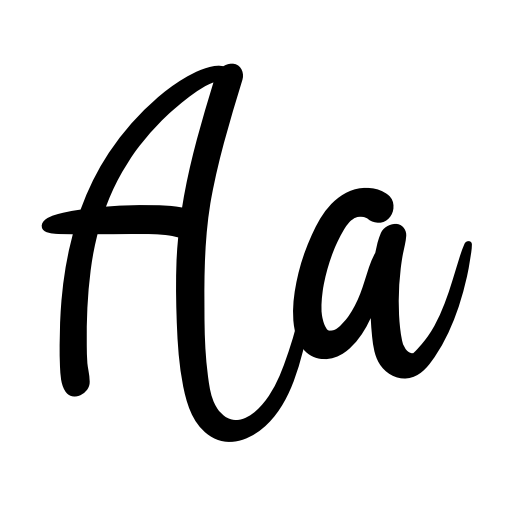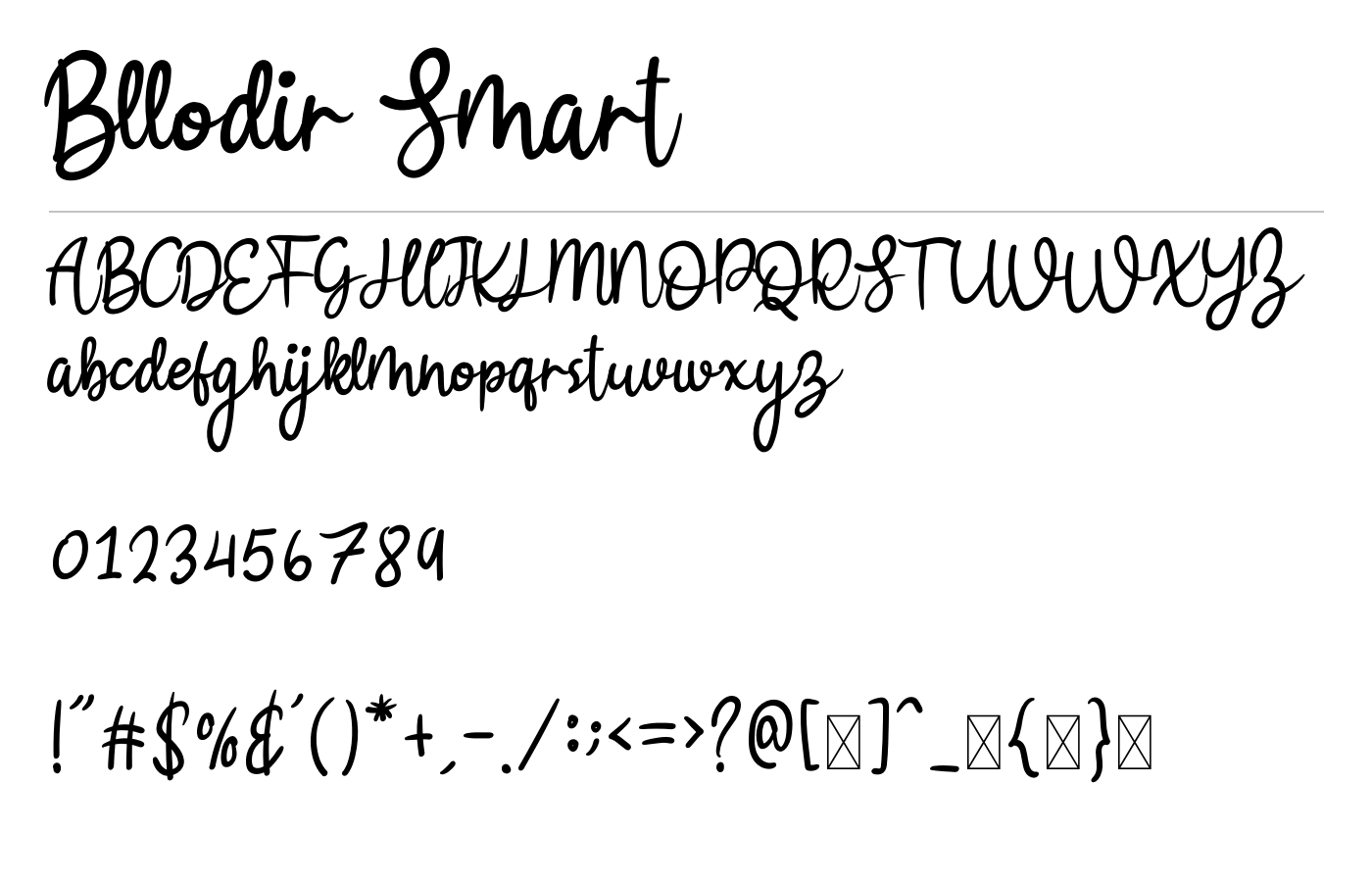
Bllodir Smart is a lively, handwritten script font with a casual and friendly feel, featuring smooth, flowing strokes and a slightly tall x-height for readability. Its playful yet elegant style makes it perfect for creative projects, invitations, and branding that want to convey a personal and approachable vibe. This font works well in headlines, logos, and social media due to its unique character and warmth.
Bllodir Smart Font